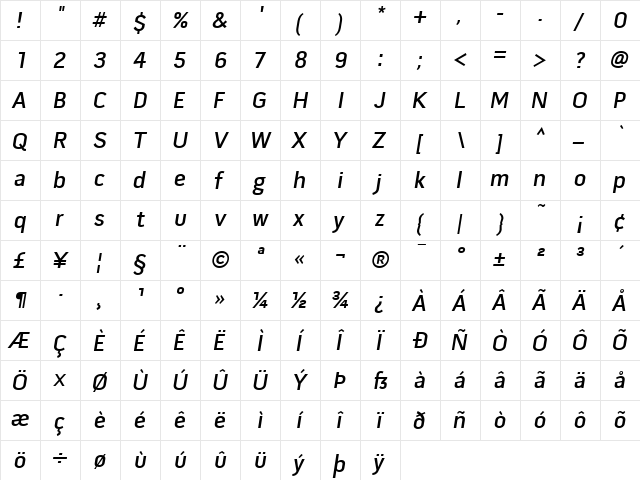
Pill Gothic 600mg Semibd Obq
| Designer | Christian Robertson |
Design Context for Pill Gothic 600mg Typeface
Pill Gothic 600mg has the quiet confidence of well-executed sans-serif typography: versatile, unobtrusive, and dependable at any size.